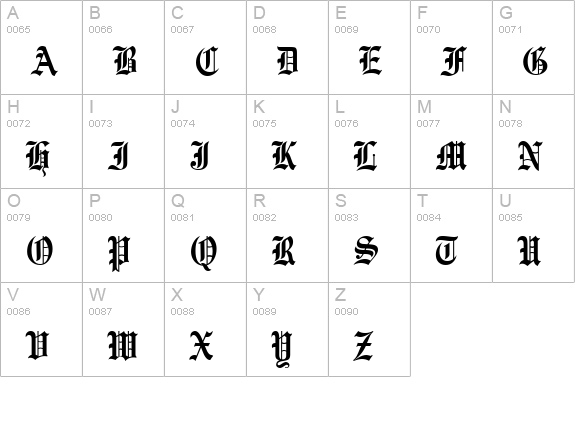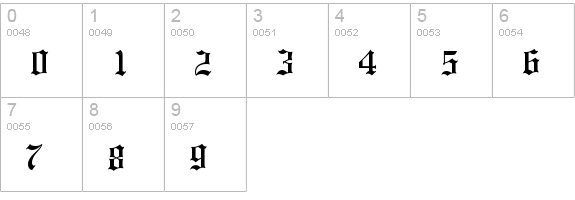
E780-Blackletter-Regular is the standard, neutral variant in the E780 typeface family \xE2\x80\x94 well suited to general body text, paragraphs, and standard typographic work.
E780-Blackletter-Regular is a stunning blackletter font that exudes elegance and sophistication. Its intricate design and sharp angles give it a timeless and classic appeal, making it perfect for adding a touch of old-world charm to your projects. This font is ideal for creating vintage-inspired designs, logos, invitations, and more. The E780-Blackletter-Regular font is not only visually striking but also versatile and easy to use. Its bold and distinctive characters make a bold statement while still maintaining readability. Whether you're working on a branding project, poster design, or any other creative endeavor, this font is sure to make a lasting impression. And the best part? E780-Blackletter-Regular is available for free download at FontsMarket.com. So you can easily add this beautiful font to your collection without having to break the bank. Don't miss out on the opportunity to enhance your designs with this unique and eye-catching typeface. Download E780-Blackletter-Regular today and let your creativity soar!